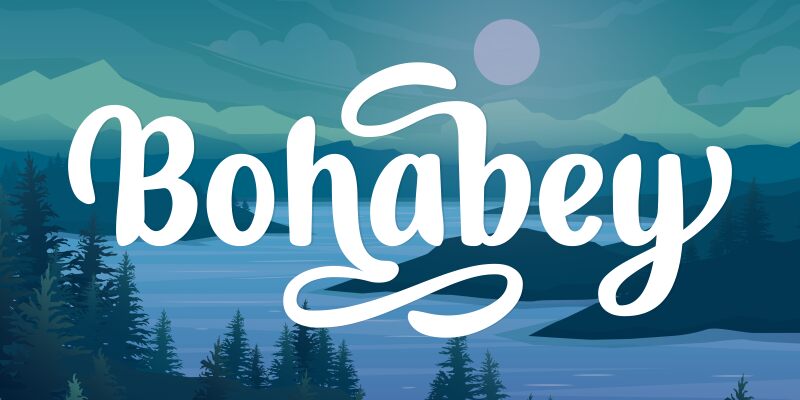
Bohabey
Introducing Bohabey, a bold, handmade font created by Kristopher Sianturi and Situjuh Nazara. Perfect for a wide range of projects from logos to greeting cards due to its unique style and weight.